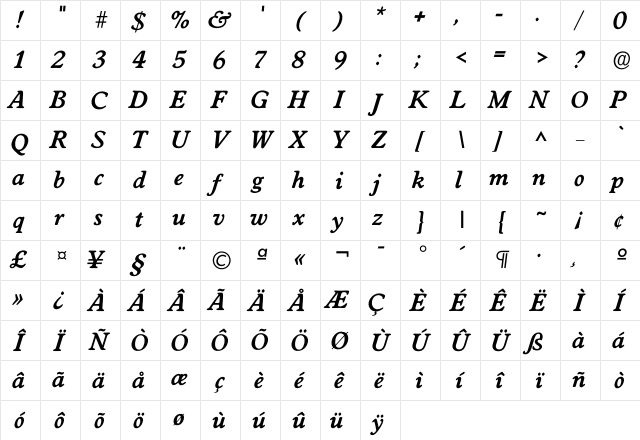
Iworcester DemiBold
Style: DemiBold
Iworcester Family
Complete Iworcester DemiBold glyph index. Displaying only characters natively supported by Iworcester DemiBold font.
Design Context for Iworcester
Iworcester is a composed and adaptable typeface that performs quietly and consistently across a wide range of design contexts. Its bold stroke weight gives it real presence on the page.